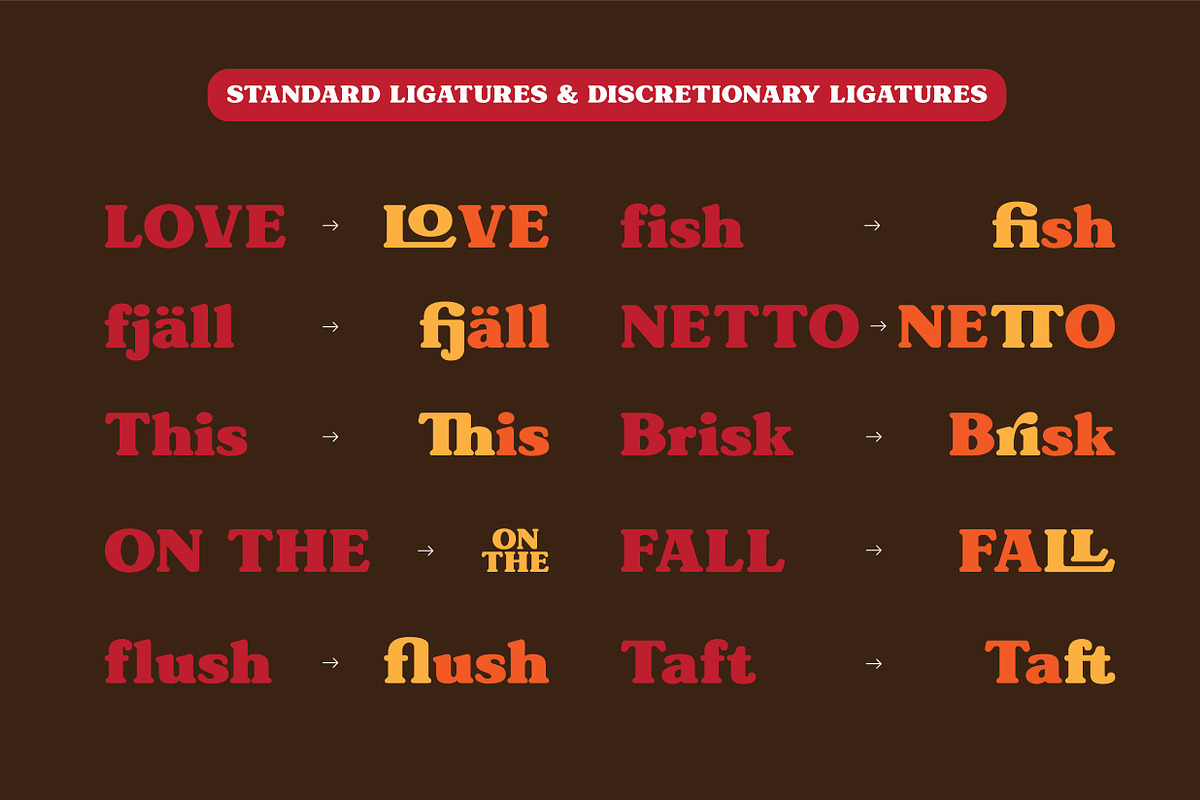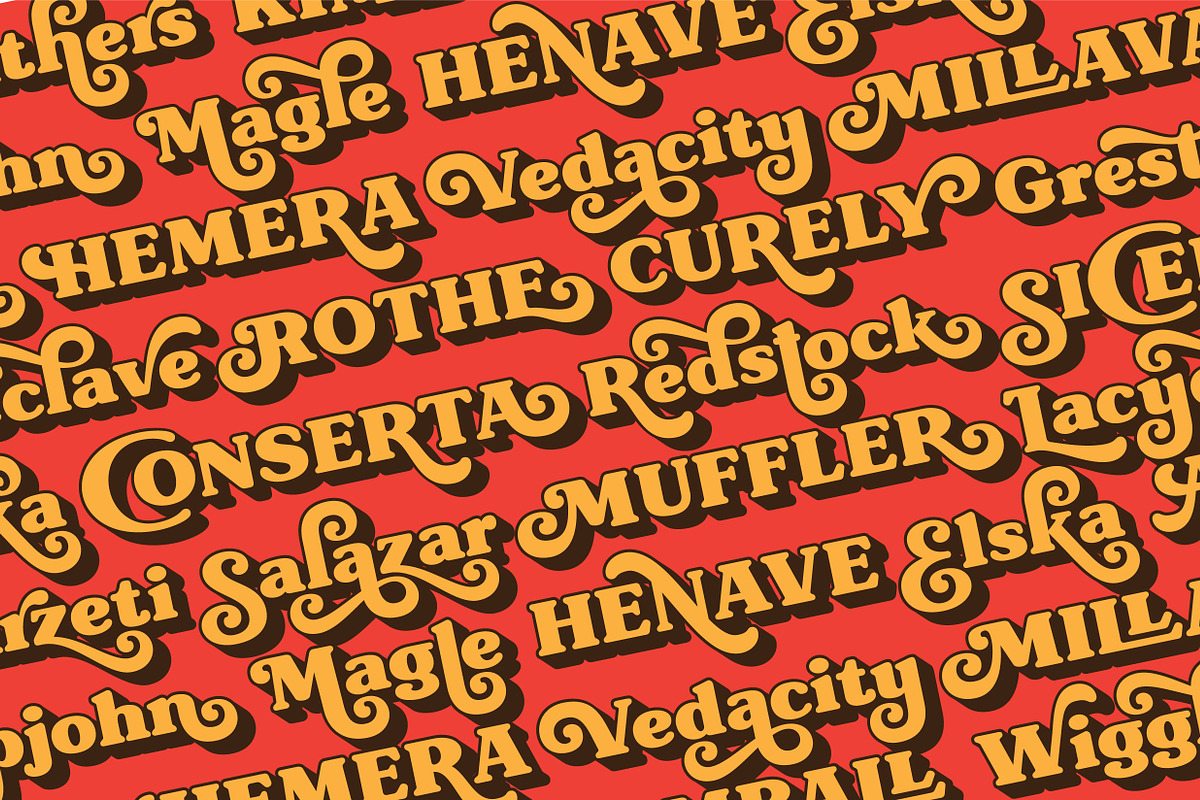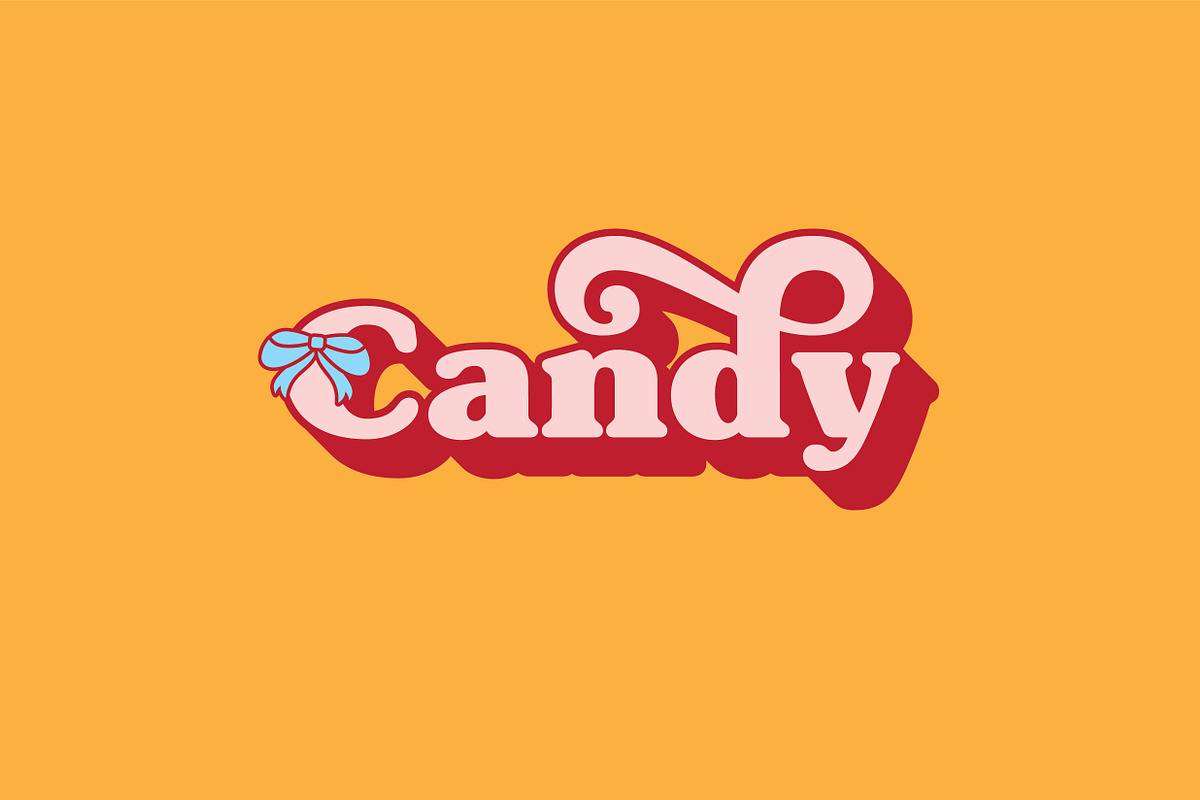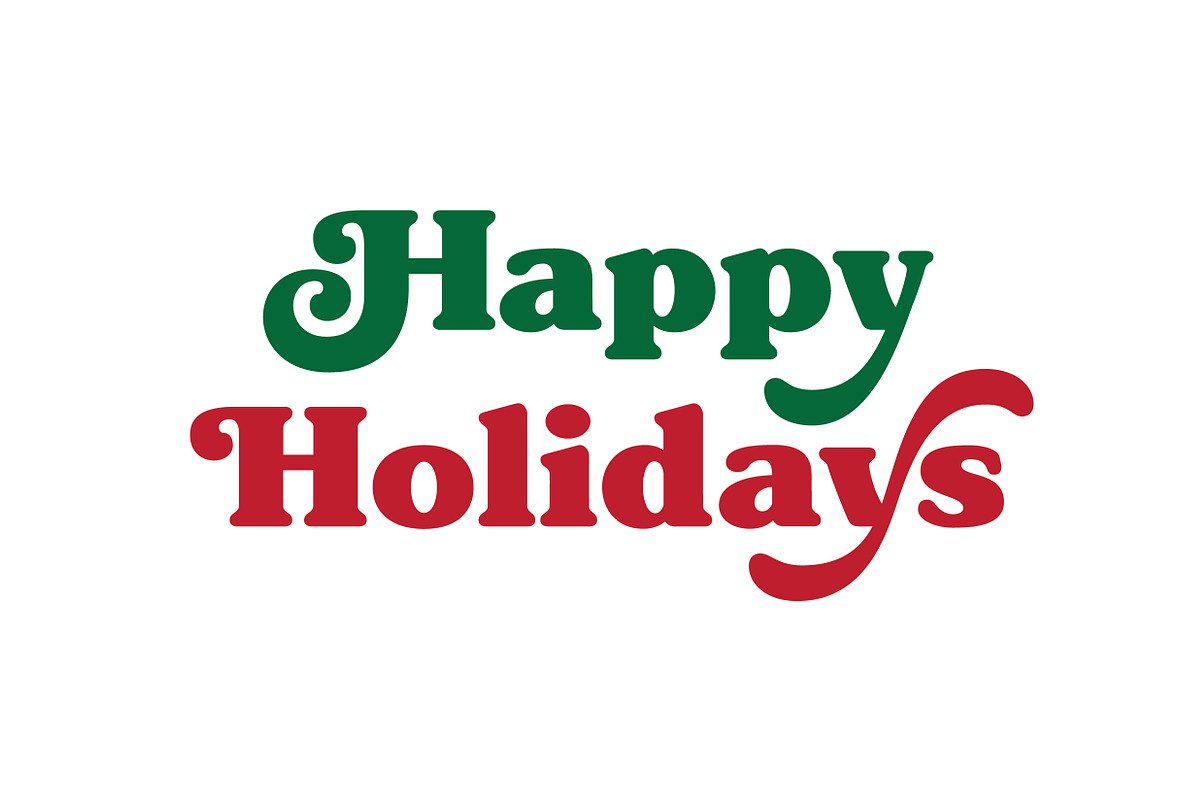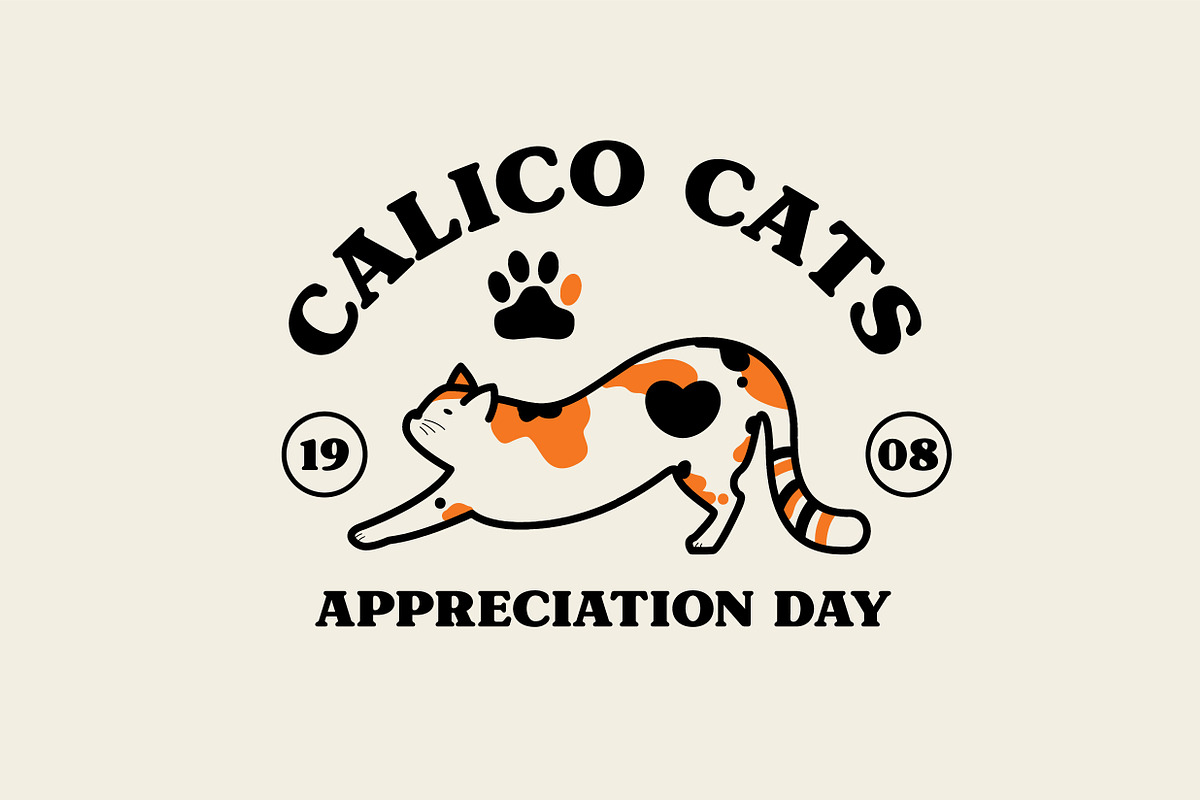
Alkaria - Vintage Retro Decorative
Please welcome, Alkaria. Fun and casual vintage retro decorative font. The definition of real versatility and flexibility. You can rock on both vibes, retro and modern by using a single font. Yes, just like your favorite day-to-day sneakers.
Wide variety of Stylistic Alternates and Ligatures in every single letter to elevate your design game to the next level. And it comes in 3d Shadow version too. Cut the process more because it should be easy.
Perfectly fit for the visual project such as logo, branding, poster, food and beverages, social media content, website, UI/UX design, youtube thumbnail, CV, mood board, wedding, you name it.
This has quickly become one of my favorite fonts for a funky, retro style bit of flair. The alts work beautifully, and I am able to effortlessly create custom typography designs that look like they took a lot of work with minimal effort. I am very pleased with this font, and will be keeping an eye on this designer for more incredible type work!!